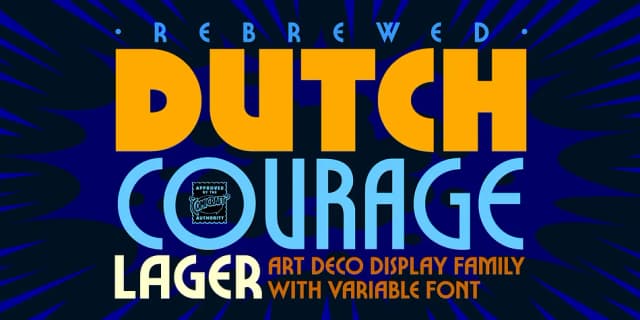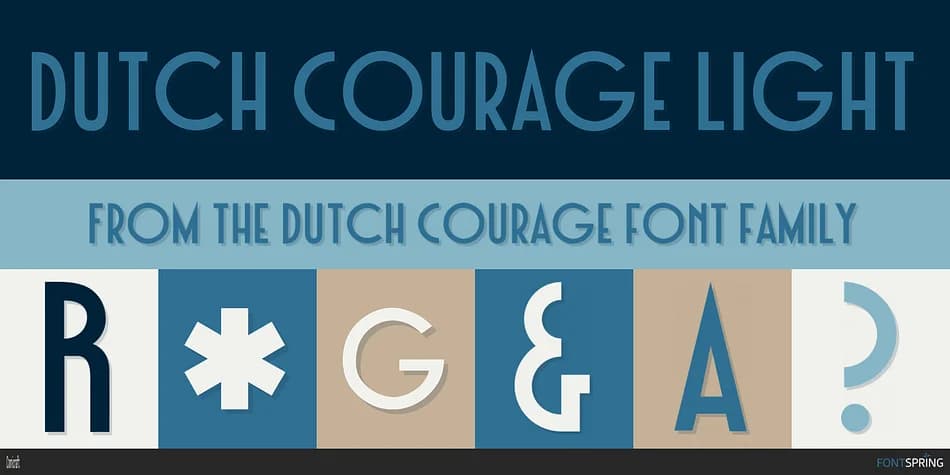
Dutch Courage features clean, geometric letterforms with sharply defined edges and a distinctly Art Deco character. Designed by Comicraft, this font originated as a custom solution for DC Comics' Batman Adventures, created to bring modernist polish to sequential art pages.
The font's balanced proportions and sharp angles work across contemporary design applications. Comic book creators find it ideal for book covers, issue headers, and interior lettering where clarity and style must coexist. Vintage-inspired band posters benefit from its confident graphic weight and nostalgic appeal. Retro product packaging gains sophistication from its refined proportions, whether craft labels or boutique cosmetics branding. Event programs, exhibition posters, and publication mastheads all work well with its controlled, professional appearance.
What makes Dutch Courage durable is its refusal to feel dated despite its Art Deco roots. The letterforms read as both classic and contemporary, bridging nostalgic character with modern sensibility. Designers and art directors building projects that require visual sophistication with a touch of vintage personality will find this a reliable choice. It's available on Creative Fabrica, ready to bring that distinctive typographic energy to your next design.
Dutch Courage Font is a decorative font that shines as a display or heading face. Pair it with a clean sans-serif or serif font for body text β the contrast creates a clear hierarchy while the two styles stay balanced and easy to read.